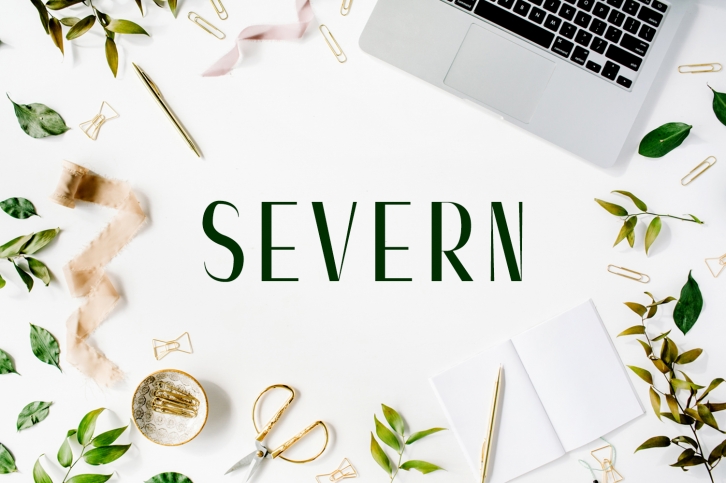
Severn Sans Serif Family is a trendy and unique font with an authentic style. It was designed by Creativetacos and it's a great choice for creative people who need such a font. It was released on July 26, 2017 and the file size is 17.83 MB. Severn Sans Serif Family will add an organic vibe to any design idea!